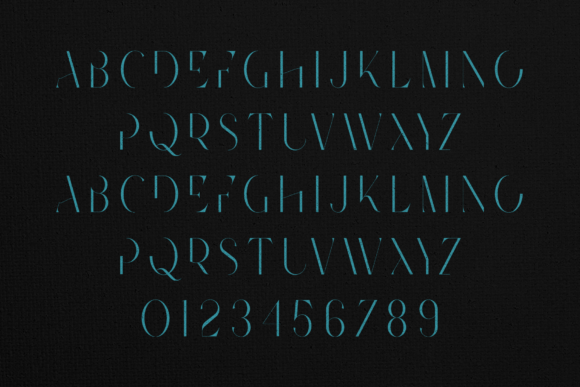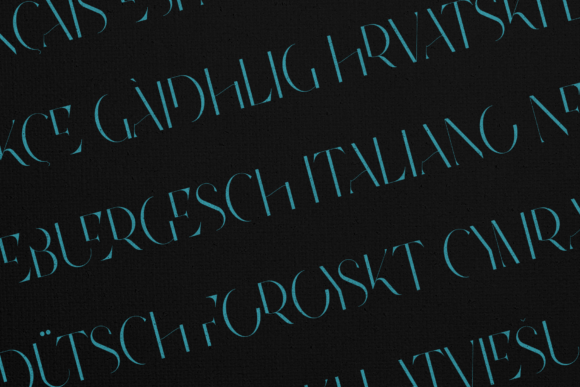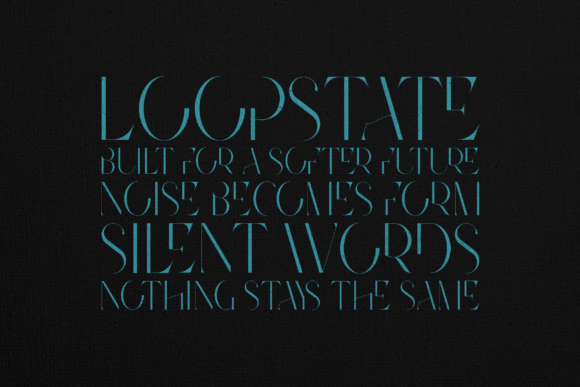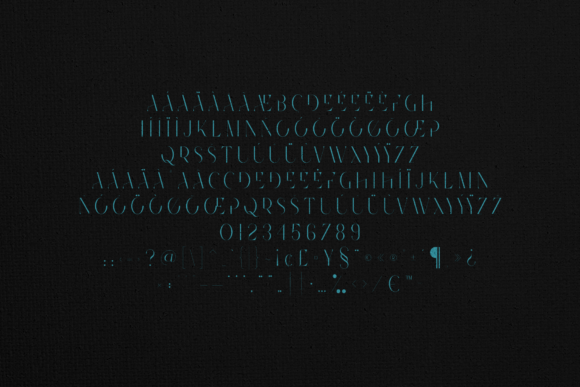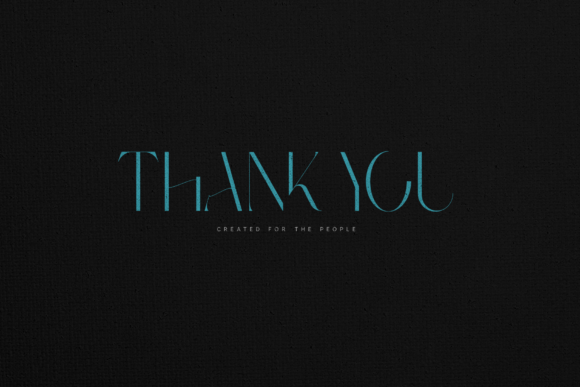
Introducing Future Flow: The Modern Display Serif Typeface
In the world of typography, a new font has emerged that is set to revolutionize the way we approach display serif typefaces. Meet Future Flow, a modern display serif font designed with elegance and sophistication in mind. With its refined proportions, fluid curves, and expertly crafted contrast, Future Flow is the perfect addition to any design project that demands a touch of luxury and refinement.
What is Future Flow?
Future Flow is a display serif typeface that boasts elegant proportions, fluid curves, and refined contrast. This font is designed to add a touch of sophistication and elegance to any design project. Whether you’re working on an editorial layout, branding system, logo design, magazine cover, poster, packaging design, visual identity system, social media graphic, or modern typographic composition, Future Flow is the perfect choice.
Key Features of Future Flow
So, what sets Future Flow apart from other display serif typefaces? Here are just a few of its key features:
- Elegant Proportions: Future Flow’s letterforms are designed with elegant proportions that exude sophistication and refinement.
- Fluid Curves: The font’s curves are fluid and smooth, adding to its overall sense of elegance and luxury.
- Refined Contrast: Future Flow’s contrast is expertly crafted to create a sense of visual hierarchy, making it perfect for use in a variety of design applications.
Use Cases for Future Flow
Future Flow is a versatile font that can be used in a wide range of design applications. Here are just a few examples:
- Editorial Layouts: Future Flow works beautifully in editorial layouts, adding a touch of elegance and sophistication to articles, features, and other written content.
- Branding Systems: The font’s refined proportions and fluid curves make it perfect for use in branding systems, where a consistent visual identity is crucial.
- Logo Design: Future Flow’s elegant letterforms make it an excellent choice for logo design, where a strong visual identity is essential.
- Magazine Covers: The font’s refined contrast and elegant proportions make it perfect for use on magazine covers, where a bold and eye-catching design is key.
- Posters: Future Flow works beautifully on posters, adding a touch of sophistication and elegance to any design.
- Packaging Design: The font’s refined proportions and fluid curves make it perfect for use in packaging design, where a clear and concise visual identity is crucial.
- Visual Identity Systems: Future Flow is an excellent choice for visual identity systems, where a consistent visual identity is essential.
- Social Media Graphics: The font’s elegant letterforms make it perfect for use in social media graphics, where a strong visual identity is key.
- Modern Typographic Compositions: Future Flow works beautifully in modern typographic compositions, adding a touch of elegance and sophistication to any design.
Why Choose Future Flow?
So, why should you choose Future Flow for your next design project? Here are just a few reasons:
- Unique and Elegant Design: Future Flow’s unique and elegant design sets it apart from other display serif typefaces.
- Versatility: The font’s versatility makes it perfect for use in a wide range of design applications.
- High-Quality Design: Future Flow is designed to the highest standards, ensuring a crisp and clean appearance in any design.
In conclusion, Future Flow is a modern display serif typeface that is set to revolutionize the way we approach typography. With its elegant proportions, fluid curves, and refined contrast, Future Flow is the perfect addition to any design project that demands a touch of luxury and refinement. Whether you’re a designer, craftsperson, or simply someone who appreciates beautiful typography, Future Flow is an excellent choice.